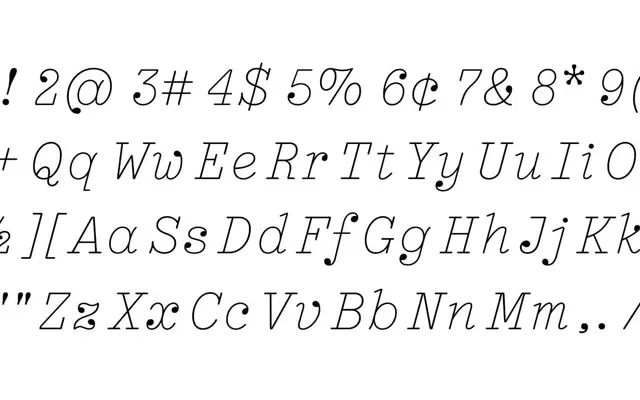
Nouvelle Noire · Alexander Colby, Timo Gaessner · 2025
A three-part type family derived from an IBM Golfball typewriter specimen, spanning italic, serif and semi cuts across five weights each.
Originally sparked by a single Light Italic from an IBM Selectric specimen, the family was developed by Alexander Colby and subsequently overhauled and expanded by Timo Gaessner into a full release. Three distinct subfamilies — Éditeur Italic, Éditeur Serif and Éditeur Semi — each run through Thin to Bold, giving the family considerable range for editorial and screen use. The typewriter origins are worn openly rather than concealed, lending the forms a considered analog warmth.
Rooted in IBM Golfball typewriter letterforms, the family carries the distinctive fixed-pitch aesthetic of analog machinery across three subfamilies — Italic, Serif and Semi — placing it firmly in the typewriter-derived serif tradition.